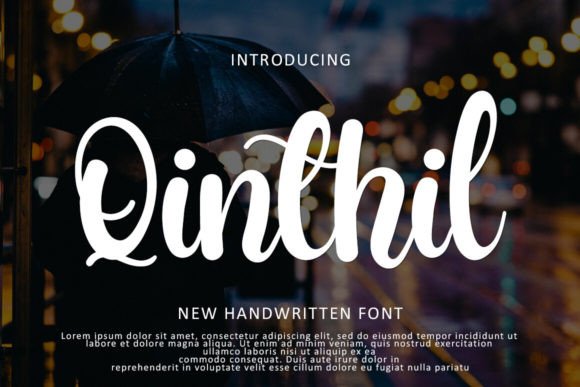
Introducing Qinthil, the Enchanting Script Font That Will Unleash Your Creativity
Step into a world of enchantment with Qinthil, the captivating script font designed to make your designs come alive. With its graceful curves, intricate details, and a touch of sophistication, Qinthil is the perfect choice for those seeking to leave a lasting impression.
Unleash Your Inner Artist
Qinthil's delicate strokes and elegant flourishes will turn every word into a work of art. Its versatile style lends itself beautifully to logos, branding, invitations, and any project that calls for a touch of elegance and magic.
Make Your Words Dance
Let your words dance across the page with Qinthil's enchanting personality. Whether you're crafting a personal letter, designing social media posts, or creating eye-catching advertisements, Qinthil will elevate your designs to new heights.
Craft Bewitching Halloween Designs
As the nights grow longer and the air turns crisp, embrace the magic of Halloween with Qinthil. Its enchanting style will add a touch of spooky elegance to your Halloween invitations, posters, and decorations. Let your imagination run wild and create truly captivating designs that will leave your audience spellbound.
Stand Out From the Crowd
Qinthil's unique charm and timeless beauty will make your designs stand out from the crowd. Whether you're a seasoned designer or just starting, Qinthil will help you create designs that leave a lasting impression.
Experience the Magic Today